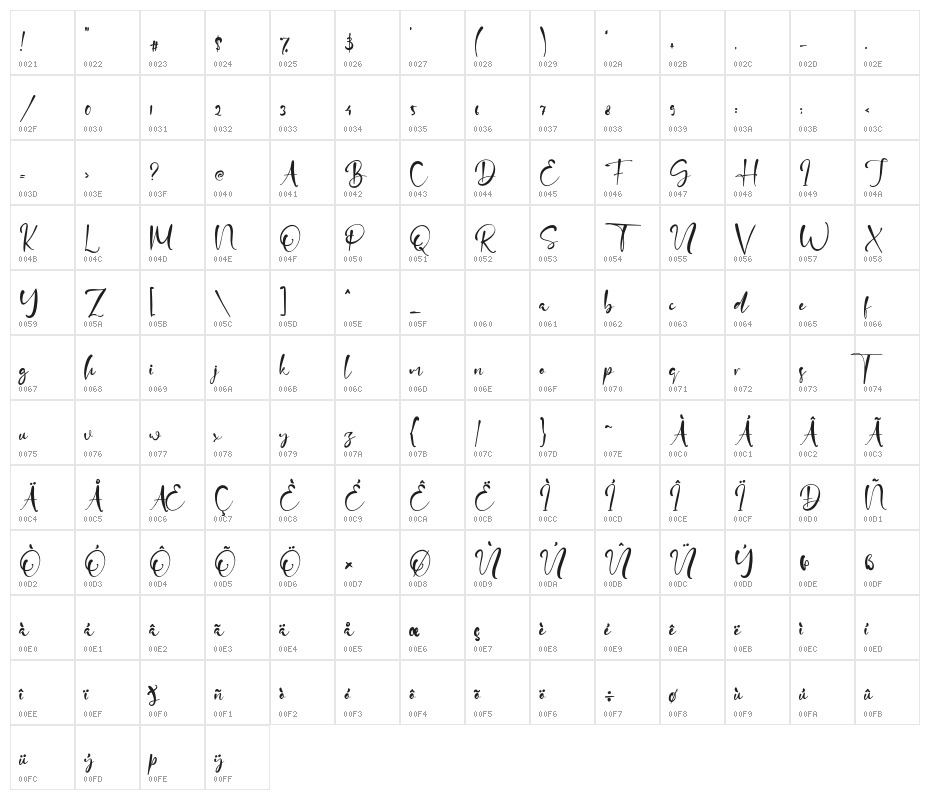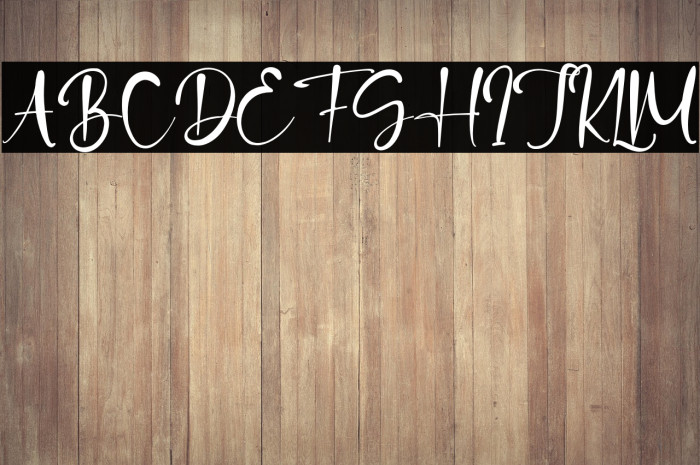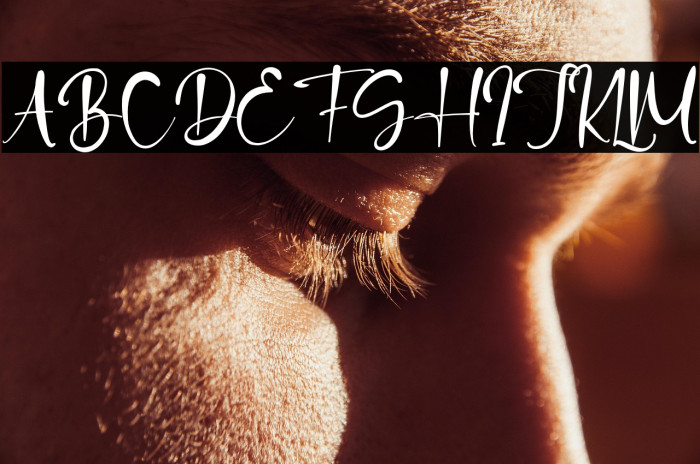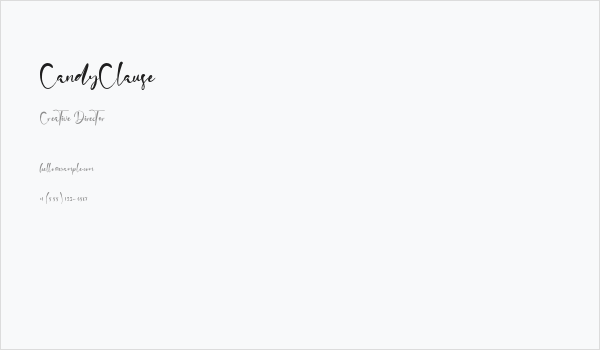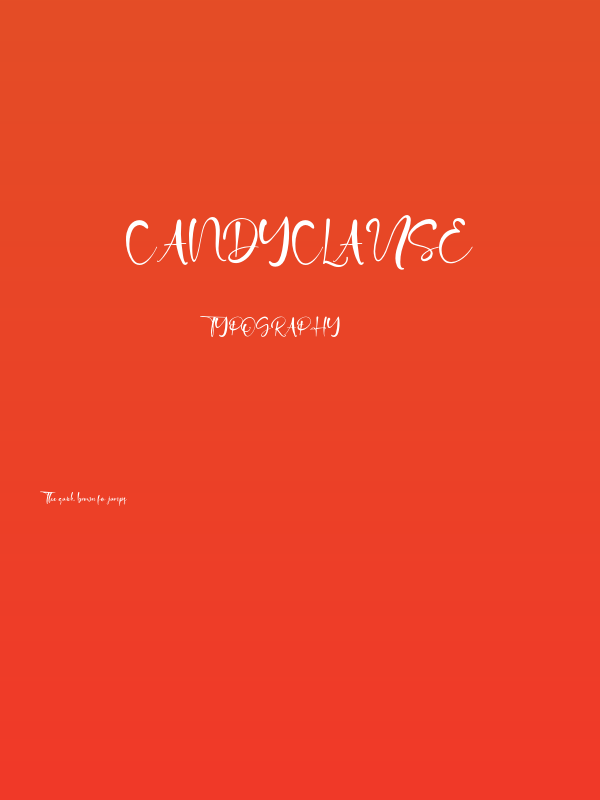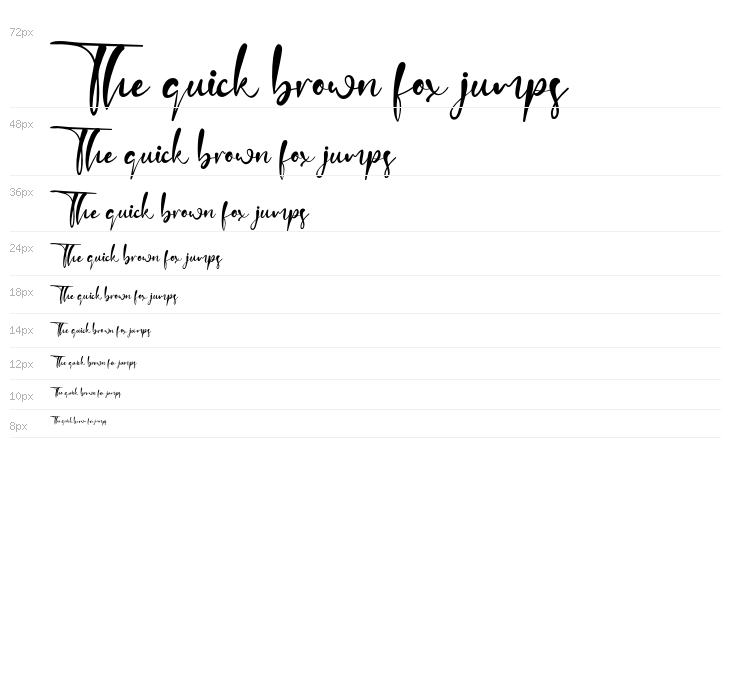
CandyClause Font
CandyClause Description
This font features a playful and whimsical script style, characterized by its flowing, cursive letters with varying stroke widths. The uppercase letters are bold and expressive, with unique flourishes and loops that add a sense of movement and elegance. The lowercase letters maintain a consistent style, complementing the uppercase with their own charming curves and swirls. Numbers and special characters are designed to match the overall aesthetic, providing a cohesive look. This font is perfect for projects that require a touch of creativity and flair.
| Proposed Projects | Ideal for greeting cards, invitations, branding, and decorative signage. |